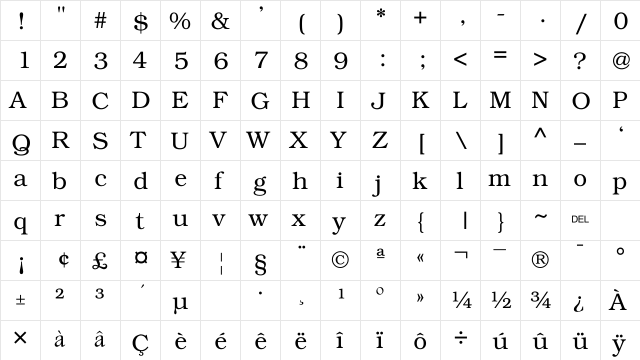
KacstDecorative Font Preview
Design Context for KacstDecorative Typeface
KacstDecorative is built around its visual character rather than neutral utility — its distinctive forms are designed to make an impression at display sizes.
Font Pairing: Pair with a clean neutral sans-serif for body copy to let KacstDecorative's character lead without overwhelming the composition.
Pro Tip: Use KacstDecorative exclusively at display sizes — it was designed to be seen, not read at length. Let a neutral companion handle body copy.